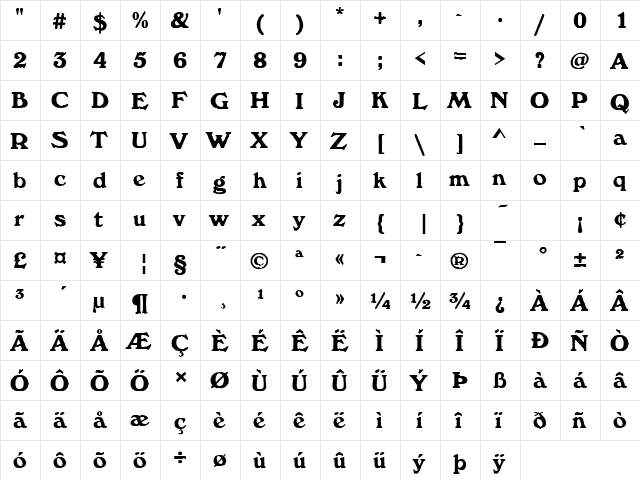
WindsorAntDBol Regular Font Preview
WindsorAntDBol Regular
WindsorAntDBol Regular Font Details
Design Context for WindsorAntDBol Typeface
WindsorAntDBol takes a measured approach to typography — its balanced proportions and neutral character make it a reliable workhorse for both digital and print work.